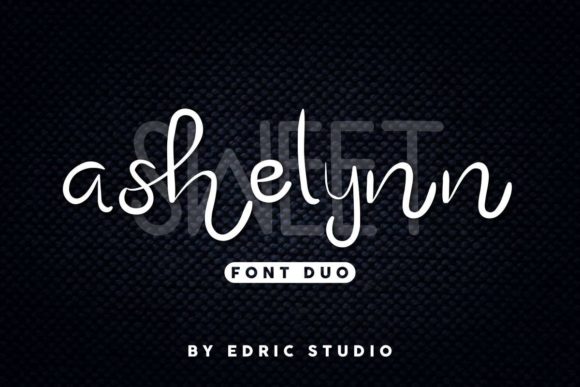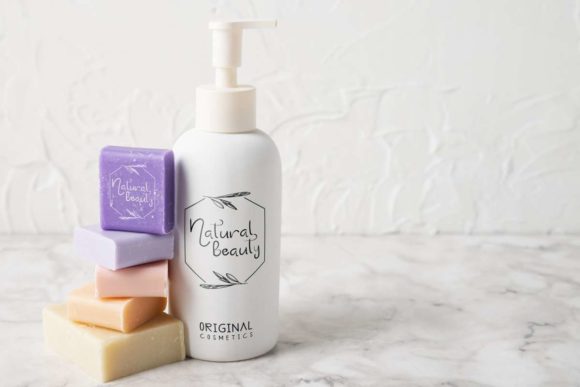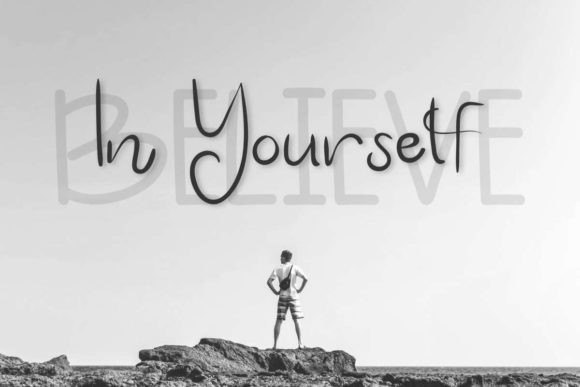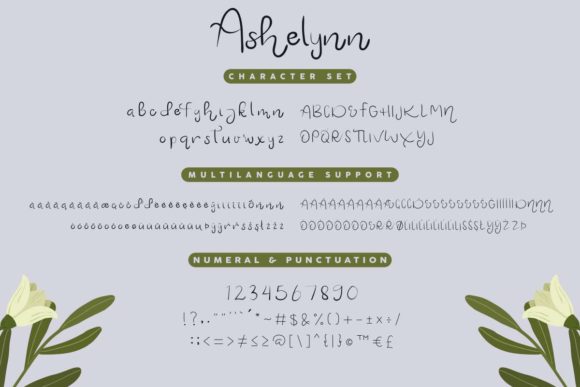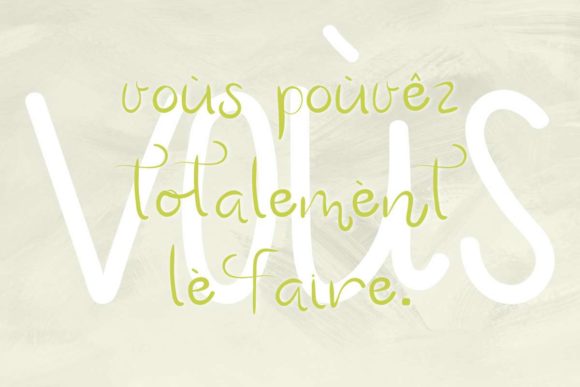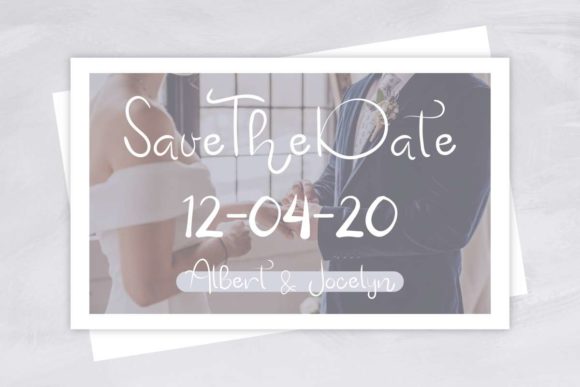
A Match Made in Heaven: Unleashing the Power of Ashelynn Duo Font
Have you ever been scrolling through a design inspiration board, and suddenly, a font combination catches your eye? For many designers, this moment of serendipity sparks a creative frenzy. It was one of these moments that led us to the enchanting Ashelynn Duo Font – a harmonious union of script and sans fonts that will elevate your designs to new heights.
Ashelynn Duo Font is a versatile font combination that brings together the elegance of a script font and the sophistication of a sans font. By combining these two styles, designers can create a unique and captivating visual identity that adds a touch of playfulness and sophistication to any design. Whether you’re working on a branding project, crafting a headline, or creating a social media campaign, Ashelynn Duo Font is an invaluable asset in your design toolkit.
Ashelynn Duo Font Key Features
- Font Size: 6 styles: Thin, Light, Regular, Medium, Bold, Extra Bold
- Resolution: Optimized for screens, with a high level of clarity at small sizes
- Unique Characteristics: A modern sans-serif design with a touch of elegance, suitable for various applications such as logos, headings, and body text
- Language Support: Supports over 200 languages, including Latin, Cyrillic, Greek, and many more
- Font Weight: Offers a range of font weights to suit different design needs, from Thin to Extra Bold
Ashelynn Duo Font Review
The Ashelynn Duo Font is a beautiful script font that’s perfect for designers looking to add a touch of elegance to their projects. Here are some things that work well: ✨
- The font’s cursive design makes it ideal for creating beautiful headings, titles, and quotes.
- The Ashelynn Duo Font comes in two weights, giving you the flexibility to choose between a lighter or bolder look.
- The font’s connectivity between letters is smooth and fluid, making it a joy to read.
- The font’s high-end feel makes it perfect for luxury brands, wedding invitations, and other high-end designs.
- The font may not be suitable for body text due to its script nature.
- The font may be too ornate for some designs, so use it sparingly to avoid overwhelming the reader.
Overall, the Ashelynn Duo Font is a beautiful addition to any designer’s toolkit. With its elegant design and high-end feel, it’s perfect for creating stunning designs that are sure to impress. However, be sure to use it wisely and consider its limitations before incorporating it into your next project.
For optimal results, use Ashelynn Duo Font in combination with high-quality images and design elements.
Experiment with different font sizes and styles to create a visually appealing design.
Ashelynn Duo Font is ideal for:
- Marketing materials and advertising
- Personalized gifts and stationery
The Great Vibes Font is a beautiful, elegant script font that is perfect for creating a romantic or vintage feel in your designs. It’s great for wedding invitations, greeting cards, and other special occasions.
Comparison to Ashelynn Duo Font: Great Vibes Font has a more flowing, cursive feel compared to Ashelynn Duo Font’s more modern and geometric look. Great Vibes Font is ideal for creating a softer, more whimsical feel, while Ashelynn Duo Font is better suited for modern and minimalist designs.
The Alex Brush Font is a stunning, hand-drawn script font that is perfect for creating a luxurious and elegant feel in your designs. It’s great for high-end branding, packaging, and advertising materials.
Comparison to Ashelynn Duo Font: Alex Brush Font has a more refined and sophisticated feel compared to Ashelynn Duo Font’s more playful and modern look. Alex Brush Font is ideal for creating a high-end and premium feel, while Ashelynn Duo Font is better suited for modern and trendy designs.
3. Ostrich Sans Font
The Ostrich Sans Font is a clean and modern sans-serif font that is perfect for creating a bold and contemporary feel in your designs. It’s great for technology, sports, and other modern branding.
Q: Are the Ashelynn Duo Font’s weights and styles customizable?
The Ashelynn Duo Font offers a range of weights and styles, including light, regular, bold, and italic. While the font’s weights and styles are designed to work together harmoniously, some customization options may be available through font editing software or by using OpenType features such as font variations.